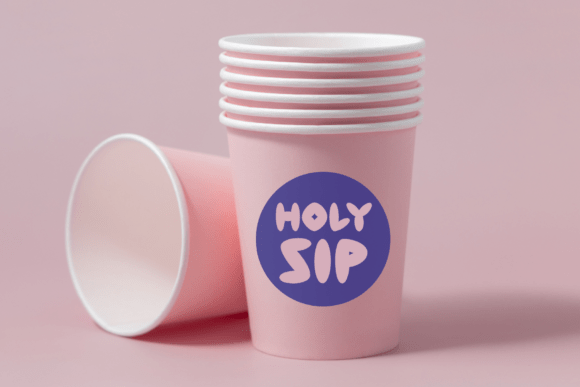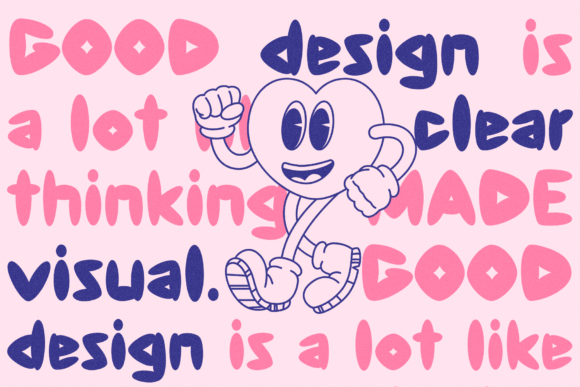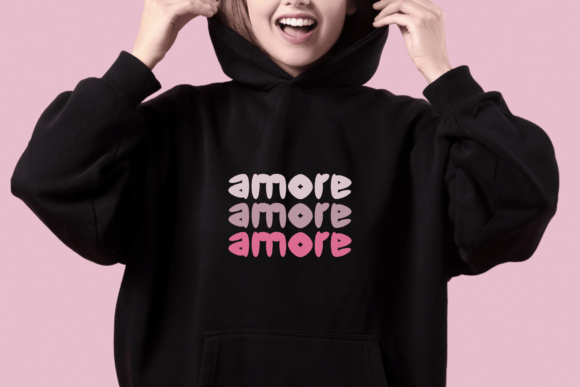
Introduction to Fatty Bubble Font
Fatty Bubble Font is perfect for your social media, planner, or crafting projects.
Why Choose Fatty Bubble Font?
Fatty Bubble Font offers exceptional quality and versatility, making it a valuable addition to your design toolkit. Whether you’re creating for personal projects or commercial use, Fatty Bubble Font delivers professional results.